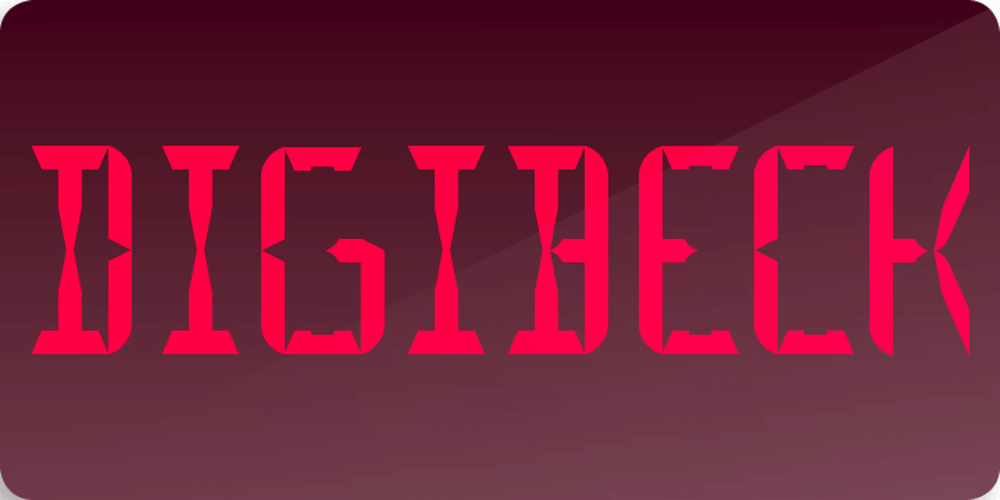
Digibeck Font Family was designed by Boris Kahl and published by Volcano Type. Digibeck contains 1 styles and family package options. Digibeck represents a new style of digital font.